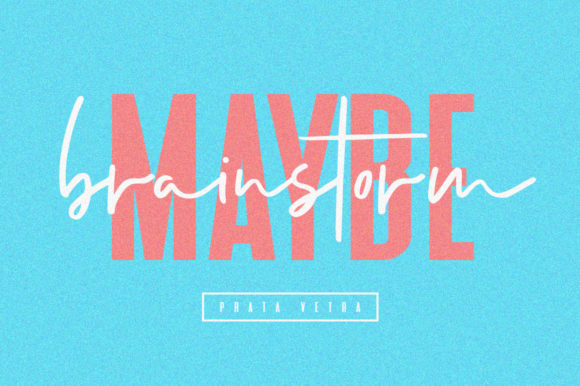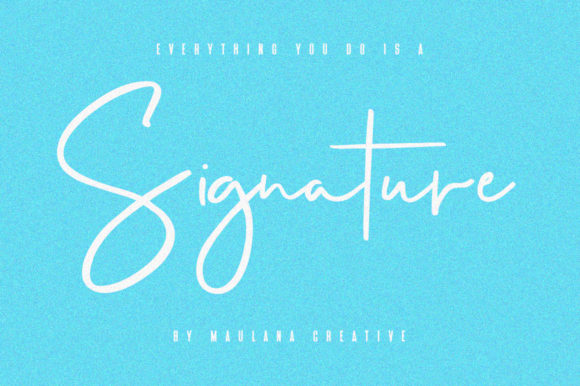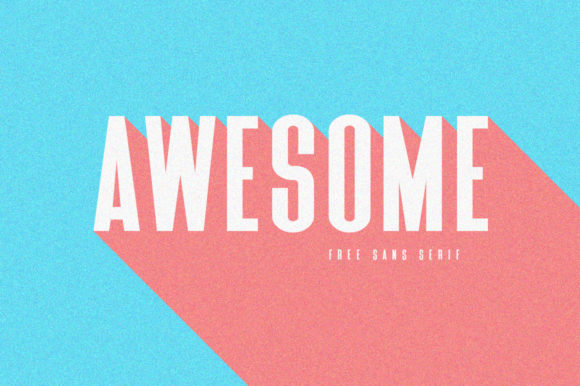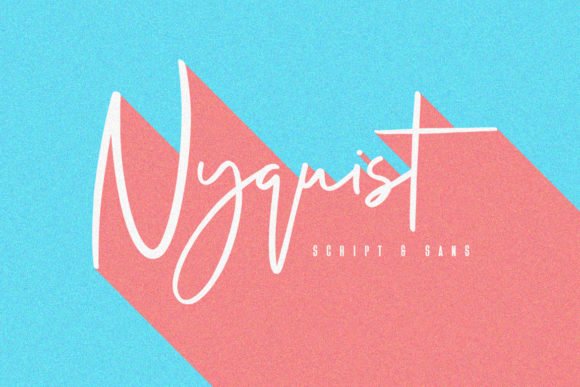
Introduction to Nyquist Duo Font
Nyquist is an incredibly authentic and wonderful font duo with a light and summery feel.
It will add a cool vibe to any design project .